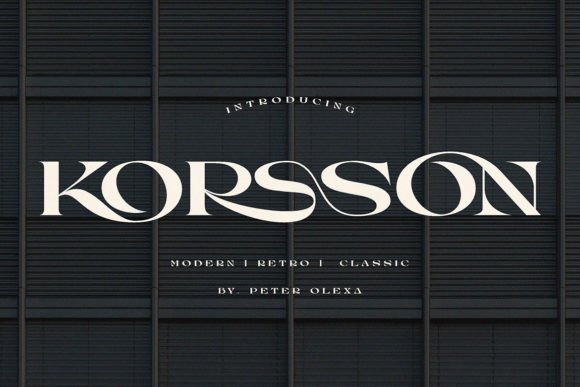
Unleash the power of modern sophistication with Korsson, the cutting-edge serif font that redefines typography. Its clean lines and contemporary twist on classic serifs elevate your designs to new heights. Whether you're crafting captivating logos, stunning editorials, or any project craving a dash of class and elegance, Korsson is your perfect companion.
Experience the allure of Korsson's sleek and stylish letterforms, meticulously crafted to command attention. Each character exudes confidence and poise, making your words shine with unparalleled clarity and impact. Let Korsson elevate your branding, captivating your audience with its distinctive and unforgettable style.
With Korsson, you hold the key to unlocking a world of creative possibilities. Its versatility knows no bounds, effortlessly adapting to a myriad of design concepts. From striking headlines that demand attention to elegant body text that invites readers to delve deeper, Korsson seamlessly transforms your vision into a captivating reality.
Discover the ease and convenience of Korsson's PUA encoding, allowing you to effortlessly access the full spectrum of glyphs and swashes. Unleash your creativity without limits, crafting designs that ooze personality and flair. Korsson's intuitive design ensures a smooth and seamless workflow, empowering you to focus on your artistry without technical hurdles.
Embrace the future of typography with Korsson, the font that embodies the essence of modern sophistication. Its timeless appeal and captivating charm will leave an indelible mark on your audience, propelling your designs to new heights of success. Don't settle for ordinary - embrace the extraordinary with Korsson today.